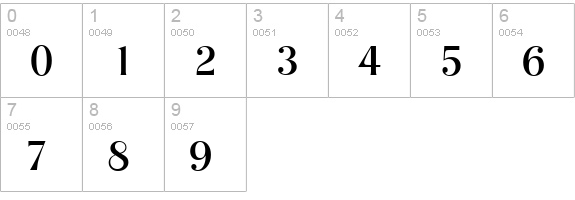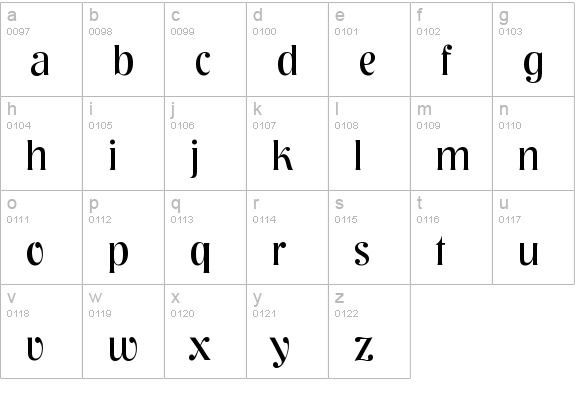
NashvilleSerial-Regular is the standard, neutral variant in the NashvilleSerial typeface family \xE2\x80\x94 well suited to general body text, paragraphs, and standard typographic work.
NashvilleSerial-Regular font is a versatile and modern typeface that exudes sophistication and elegance. With its clean lines and classic appeal, this font is perfect for a wide range of design projects, from branding to editorial design. Its timeless aesthetic makes it suitable for both print and digital applications, adding a touch of refinement to any project. What sets NashvilleSerial-Regular font apart is not only its design, but also the fact that it is available for free download at FontsMarket.com. This means that you can elevate your designs without breaking the bank, making it an accessible option for designers of all levels. Whether you're working on a logo, website, or any other creative project, NashvilleSerial-Regular font is sure to bring a touch of sophistication to your work. Download it today and see the difference it can make in your designs!